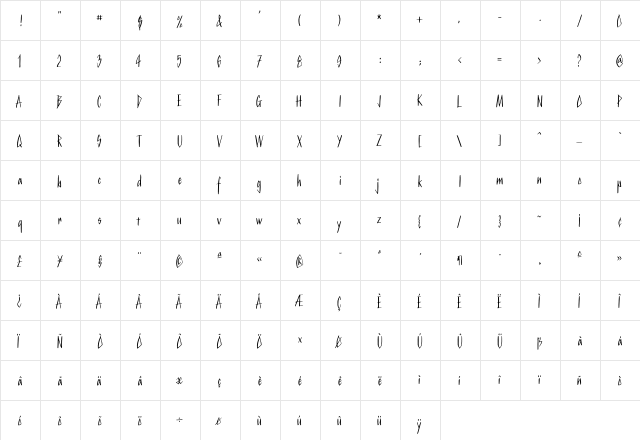
DuDuchamp Regular
Design Context for DuDuchamp Typeface
DuDuchamp is a composed and adaptable typeface that performs quietly and consistently across a wide range of design contexts.